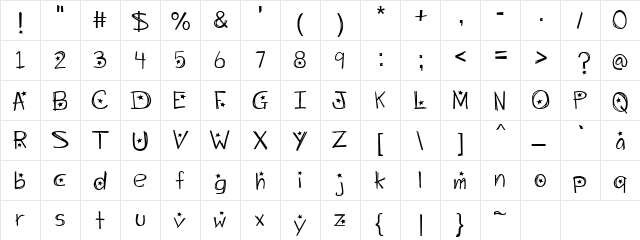
Starry Night Regular
Design Context for Starry Night Typeface
Starry Night is a composed and adaptable typeface that performs quietly and consistently across a wide range of design contexts.
Pro Tip: Use Starry Night in both headline and body roles to test its range before committing to a single application.